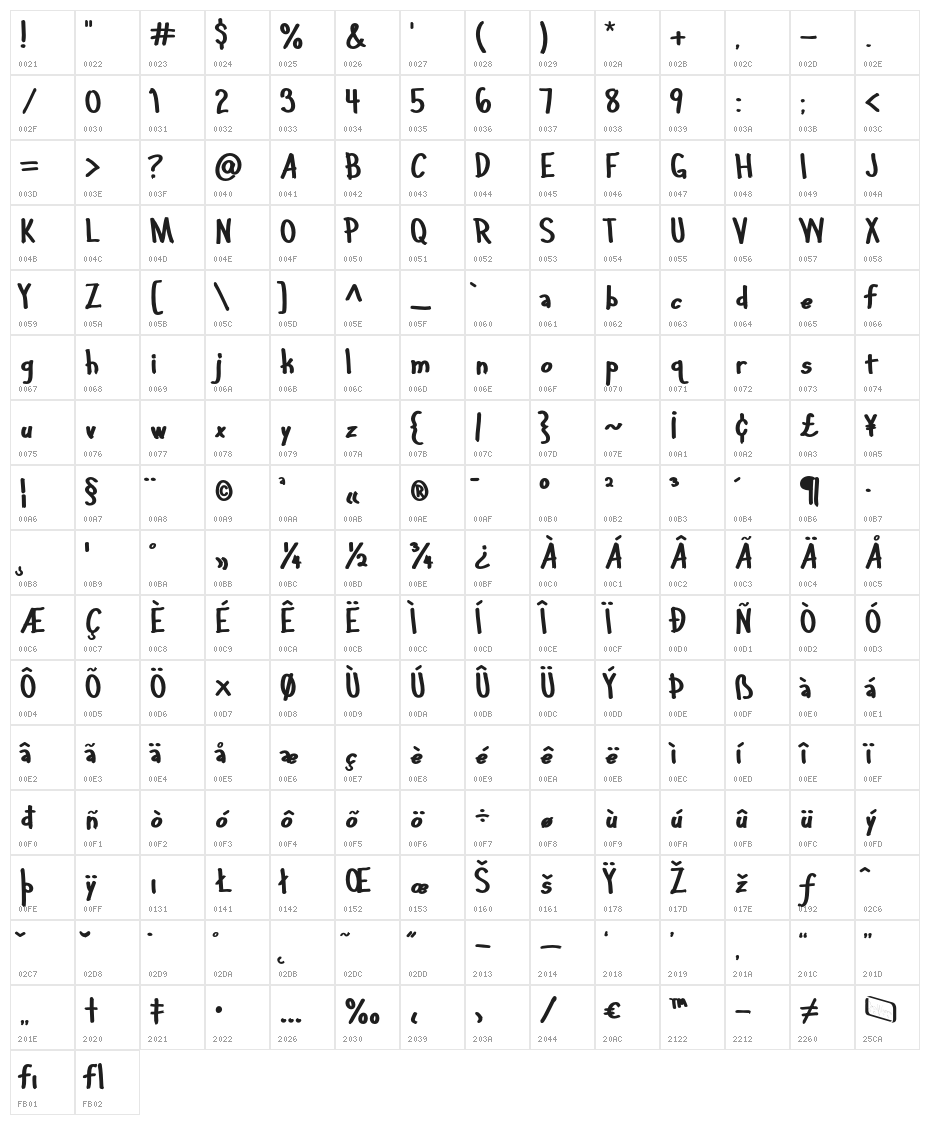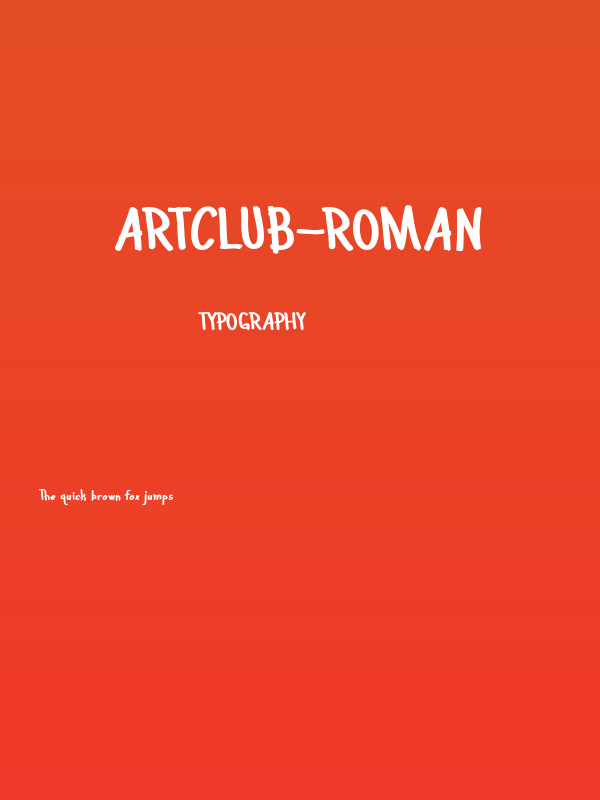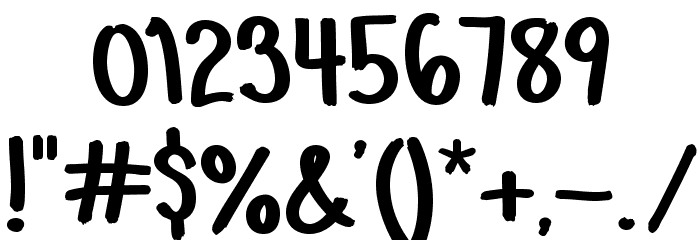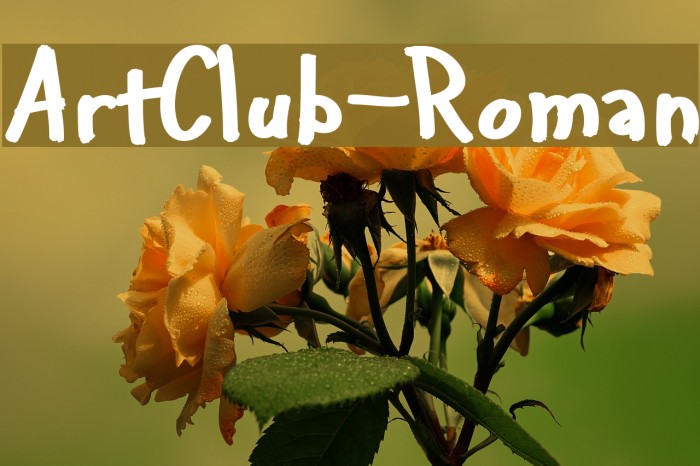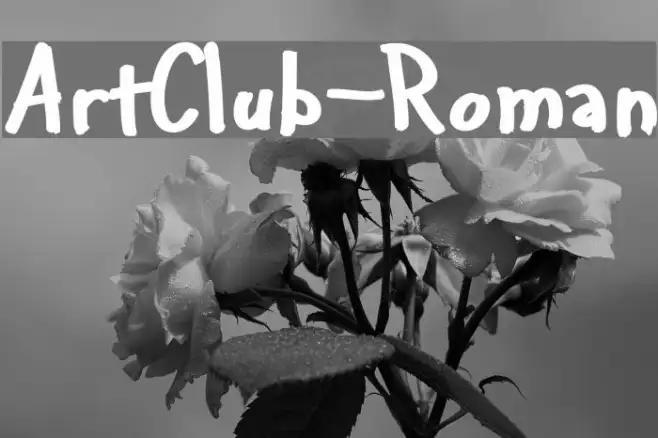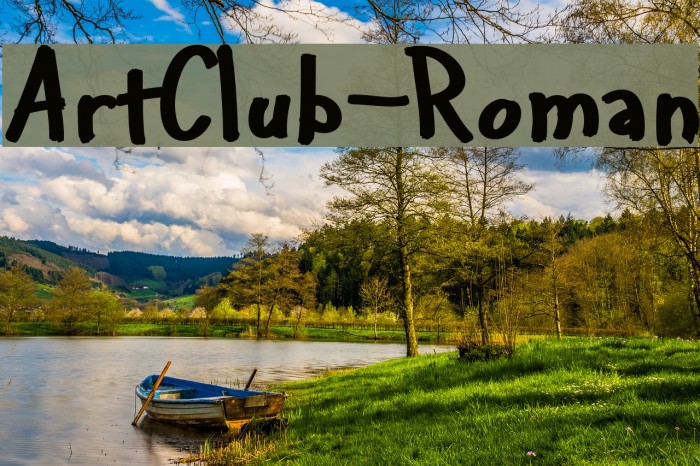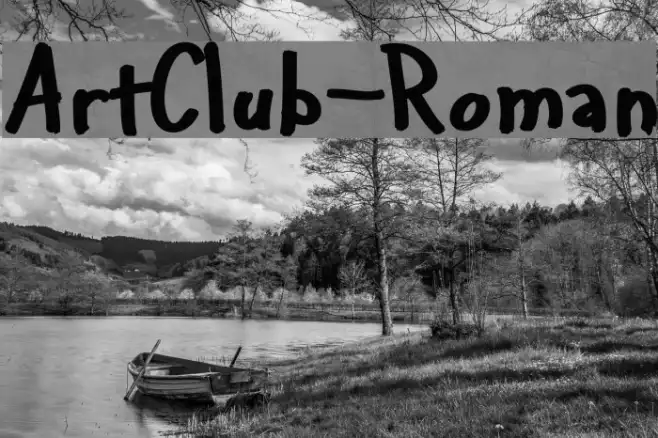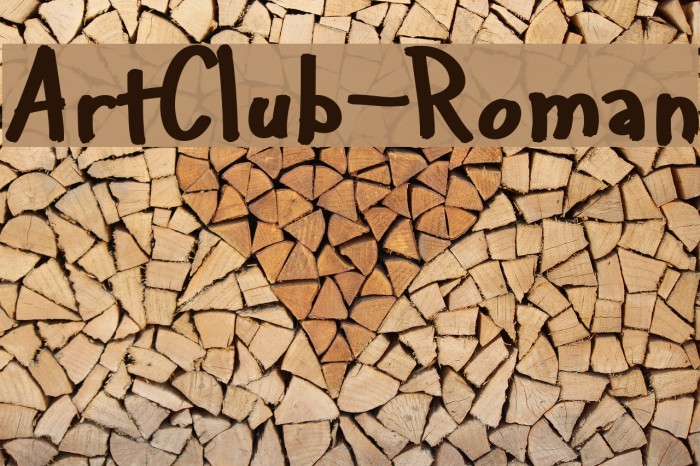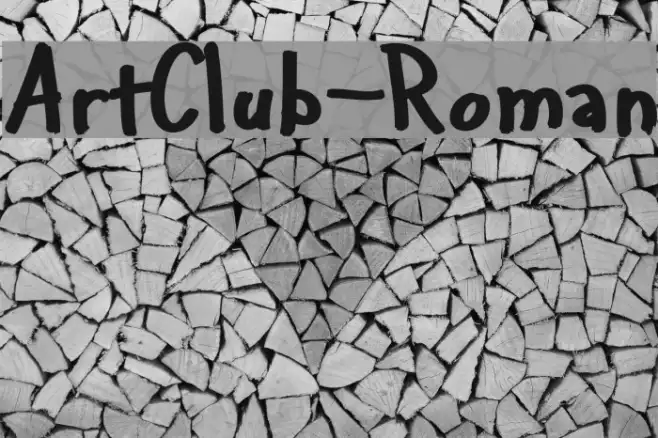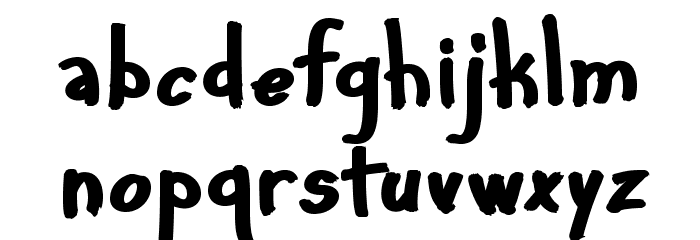
ArtClub-Roman Font
ArtClub-Roman Description
This font features a playful and bold handwritten style, characterized by its thick strokes and slightly uneven letterforms that give it a casual, artistic feel. The uppercase letters are robust and dynamic, while the lowercase letters maintain a consistent flow with a touch of whimsy. Numbers and special characters are crafted with the same lively energy, making them stand out in any design. The overall appearance is both approachable and expressive, suitable for creative projects that require a personal touch.
| Overall Style | Playful, Artistic |
| Proposed Projects | Ideal for art projects, children's books, posters, and branding that requires a personal, creative touch. |